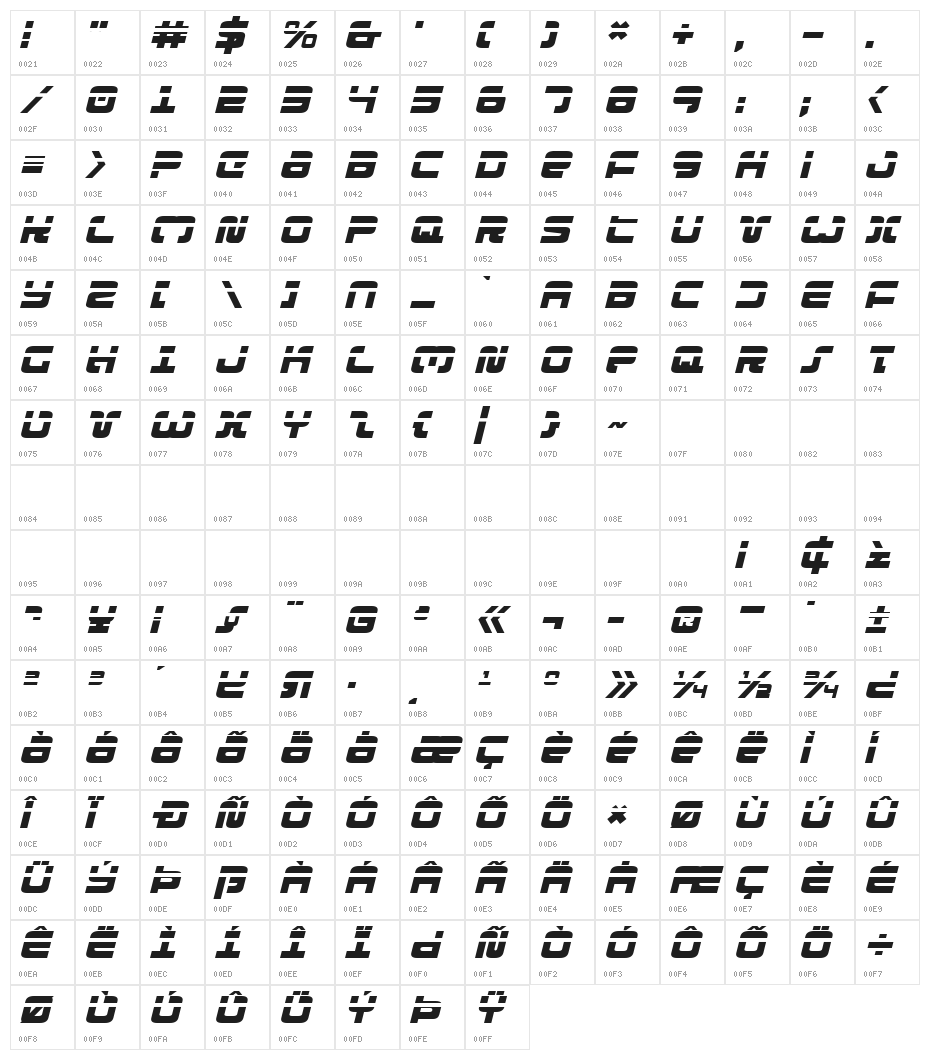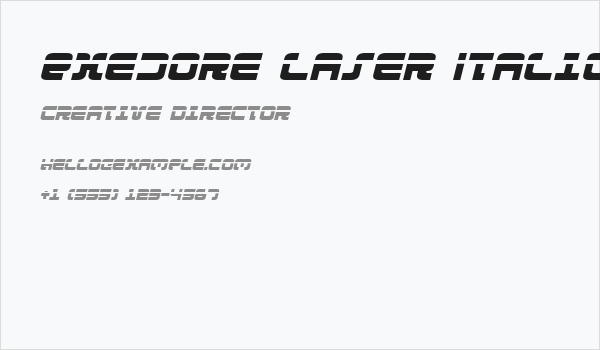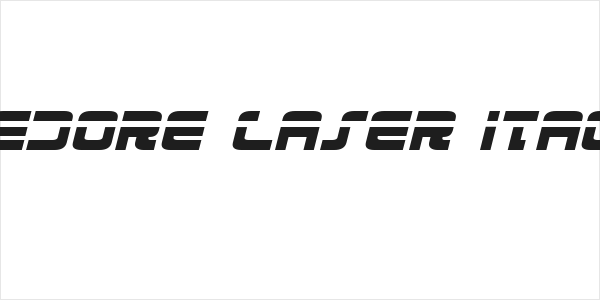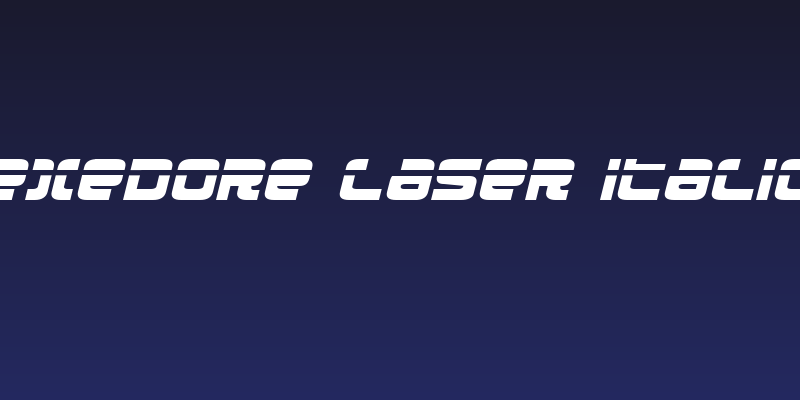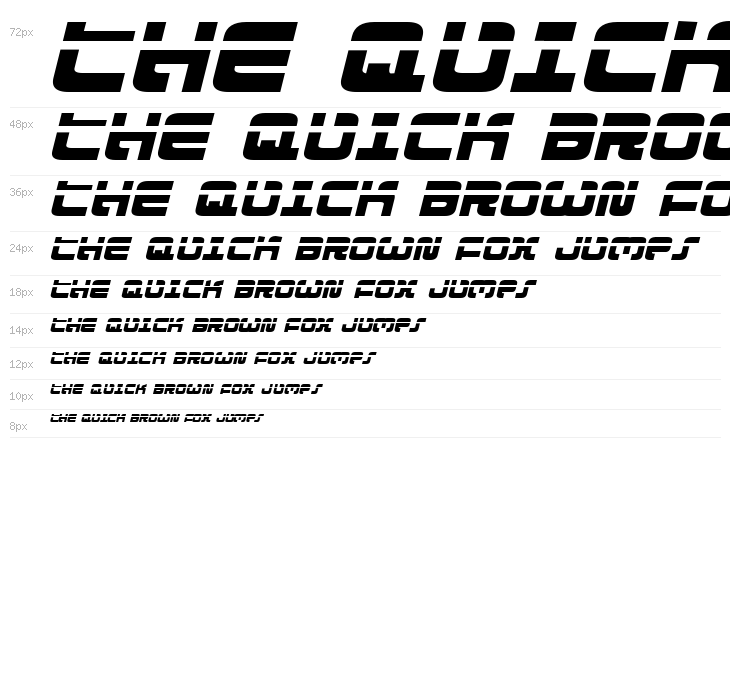
Exedore Laser Italic Font
Exedore Laser Italic Description
This font features a futuristic and dynamic design, characterized by its bold, italicized letters with sharp angles and a sleek, modern appearance. The characters are constructed with a stencil-like effect, where parts of the strokes are intentionally disconnected, giving it a high-tech, mechanical feel. The uppercase and lowercase letters maintain a consistent style, with the lowercase being slightly smaller but equally bold. The numbers and special characters follow the same design principles, ensuring uniformity across the font. The overall aesthetic is reminiscent of digital displays or sci-fi themes, making it suitable for projects that require a cutting-edge look.
| Use Case | Logos, Headlines, Display text |
| Proposed Projects | Ideal for sci-fi movie posters, tech company logos, video game titles, and futuristic-themed event flyers. |